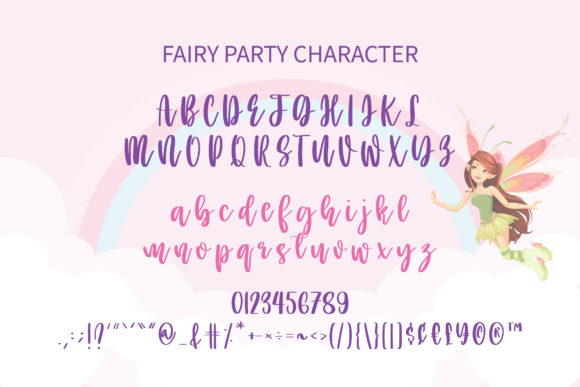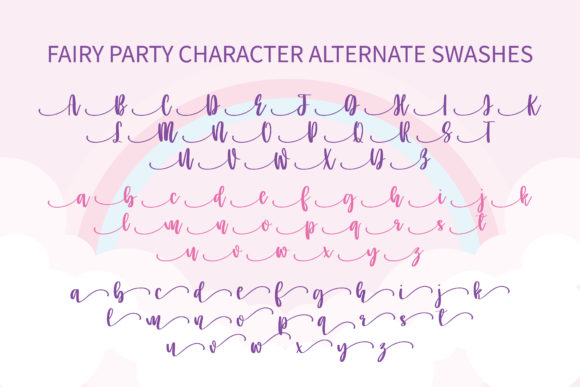
Fairy Party Font
db-ku.com - Script & Handwritten -- Fairy Party feels equally charming and elegant. It looks stunning on wedding invitations, thank you cards, quotes, greeting cards, logos, business cards and every other design which needs a handwritten touch.